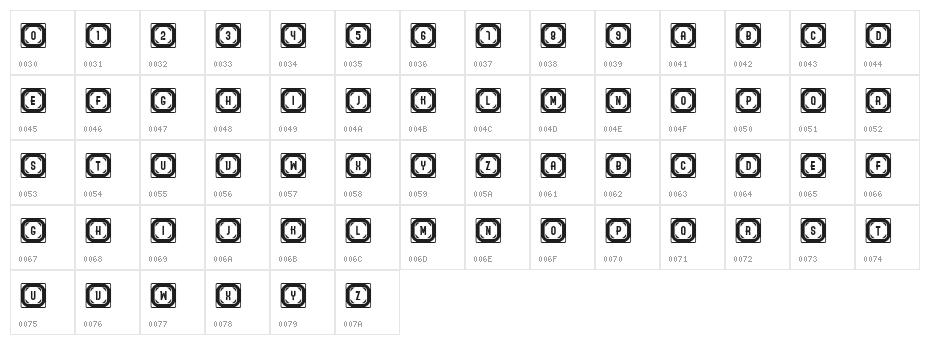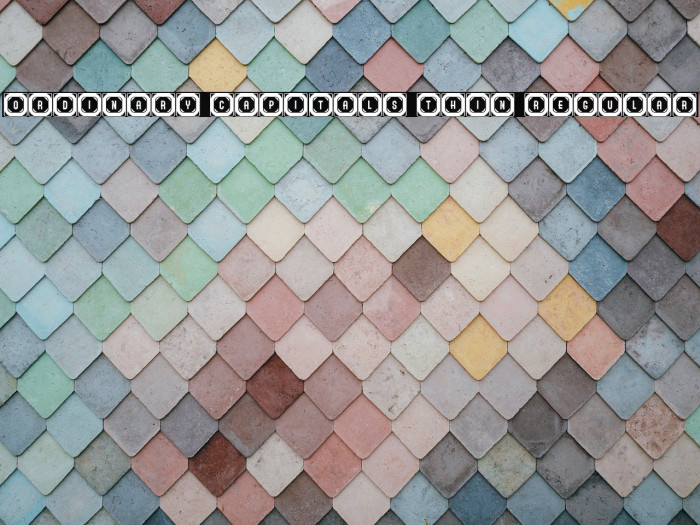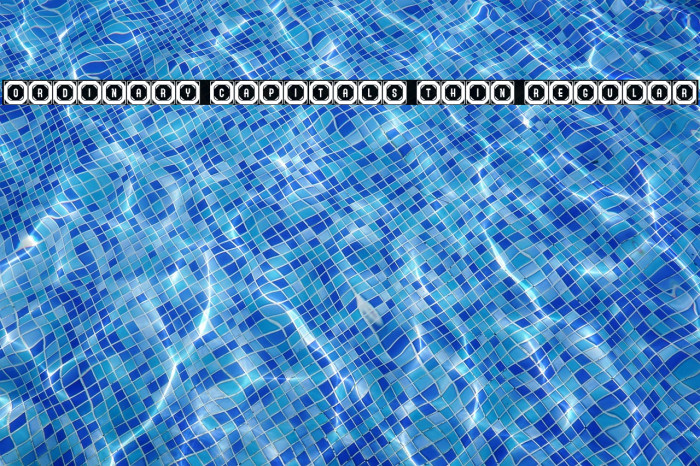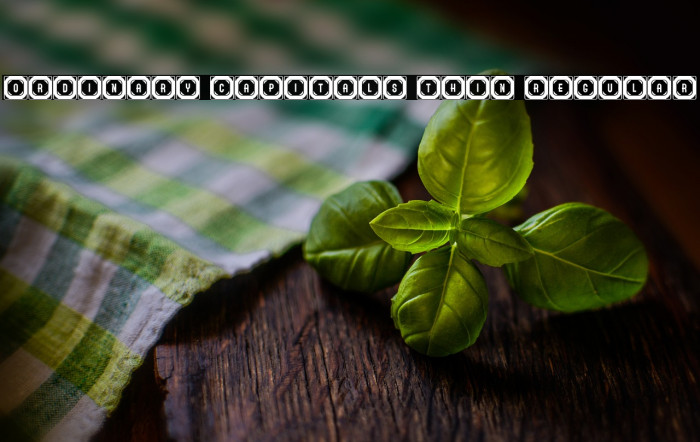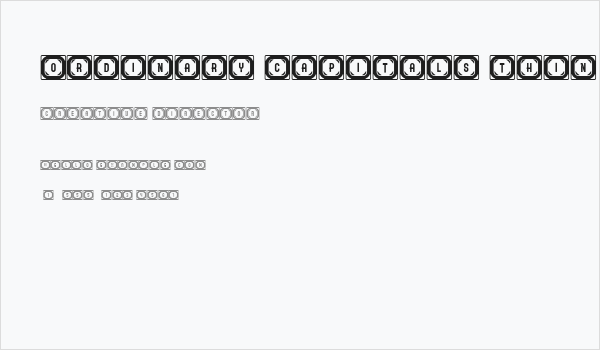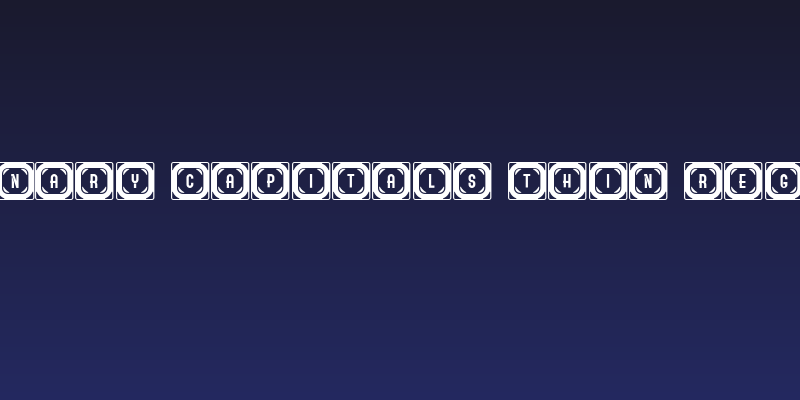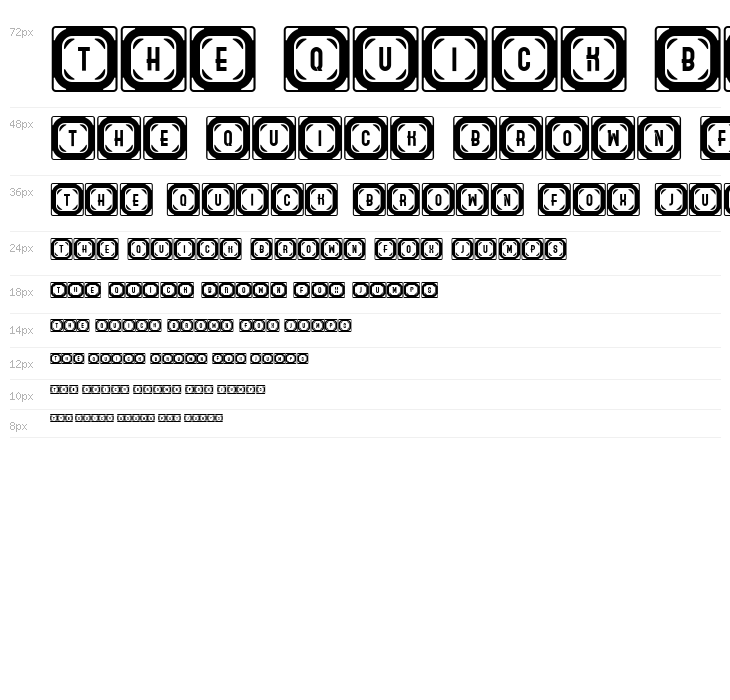
Ordinary Capitals Thin Regular Font
Ordinary Capitals Thin Regular Description
This font features a unique design where each character is enclosed within a square frame, giving it a distinct and bold appearance. The characters themselves are thin and regular, providing a nice contrast to the thick borders of the squares. The style is geometric and modern, with a playful yet structured feel. The uppercase and lowercase letters, as well as numbers, are all consistently framed, maintaining uniformity across the font. The special characters also follow this pattern, ensuring a cohesive look throughout. This font stands out due to its decorative framing, making it suitable for eye-catching designs.
| Use Case | Logos, Posters, Branding |
| Proposed Projects | Ideal for posters, logos, and branding materials that require a bold and distinctive look. |